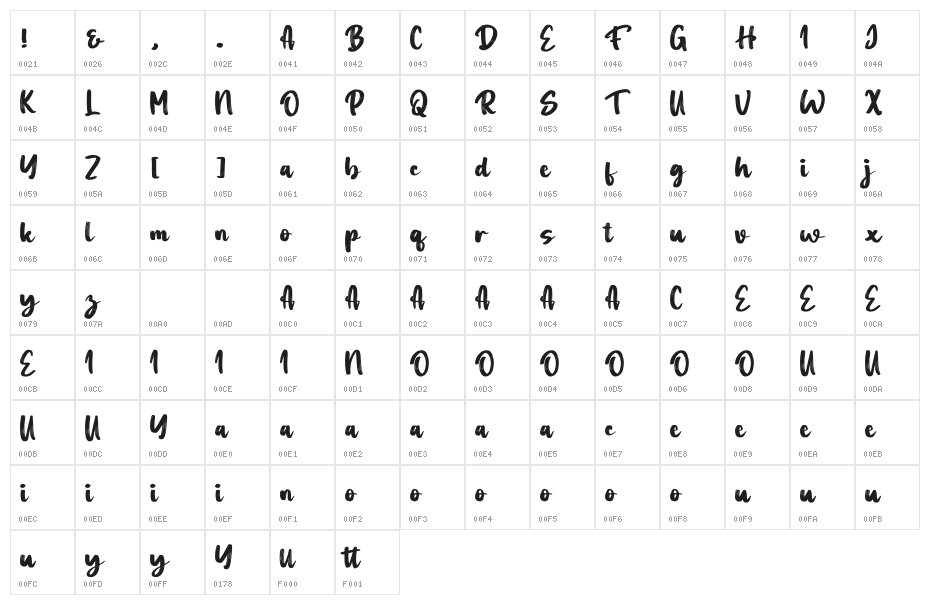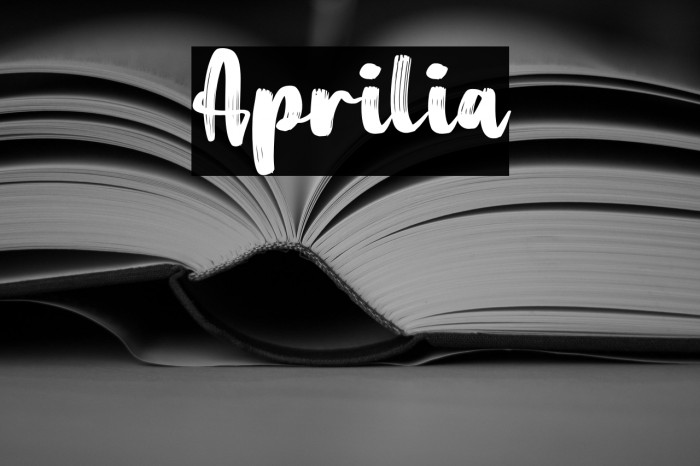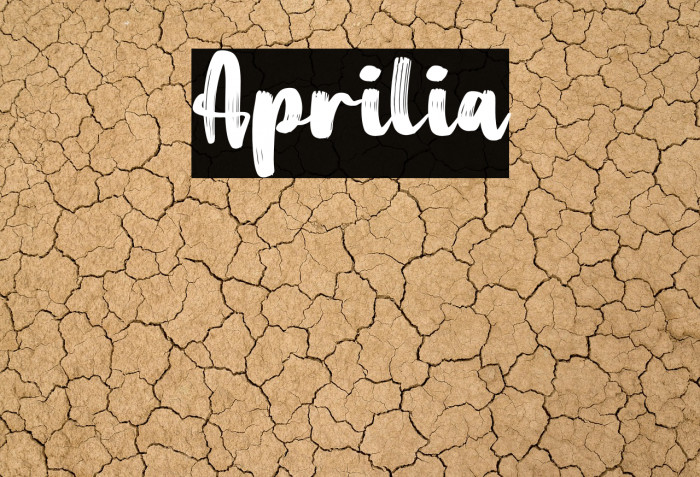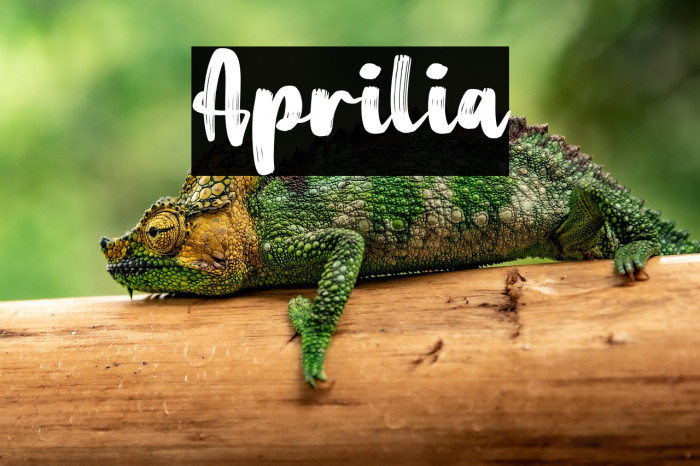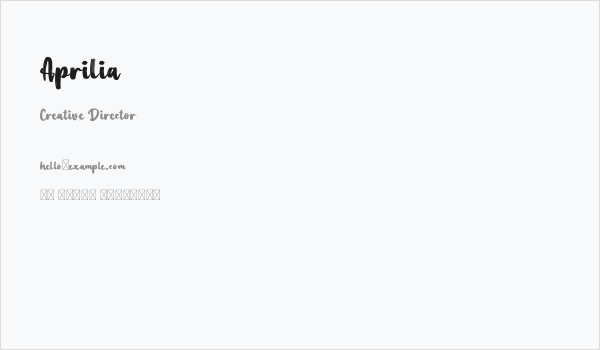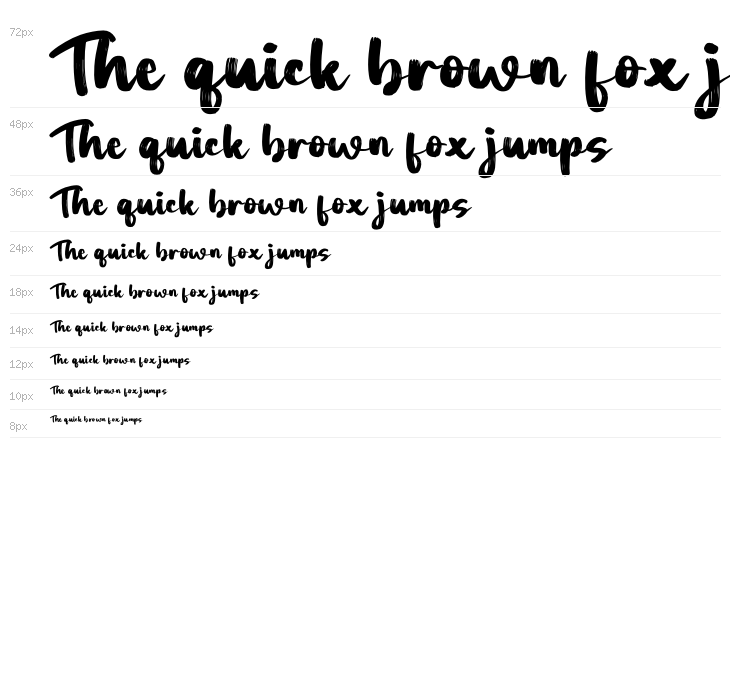
Aprilia Font
Aprilia Description
This font features a bold, brush-like script style that exudes energy and creativity. The uppercase letters are robust and dynamic, with a hand-painted appearance that adds a personal touch. The lowercase letters maintain the same lively character, with smooth curves and a slightly irregular baseline that enhances its handwritten feel. The font's strokes vary in thickness, providing a sense of movement and fluidity. This style is perfect for projects that require a personal, artistic touch, such as invitations, posters, or branding materials.
| Use Case | Logos, Headlines, Artistic designs |
| Proposed Projects | Ideal for creative projects like invitations, posters, branding, and artistic designs. |